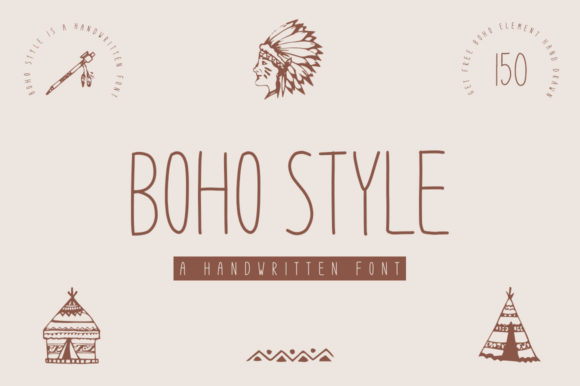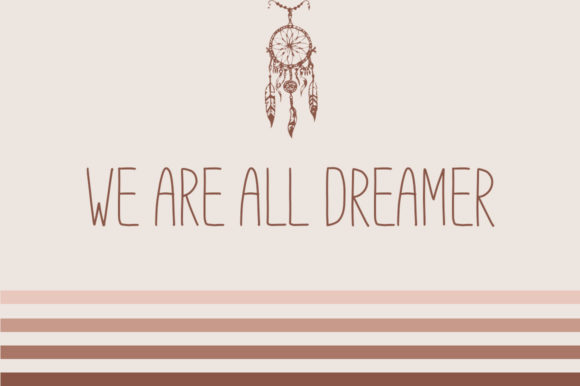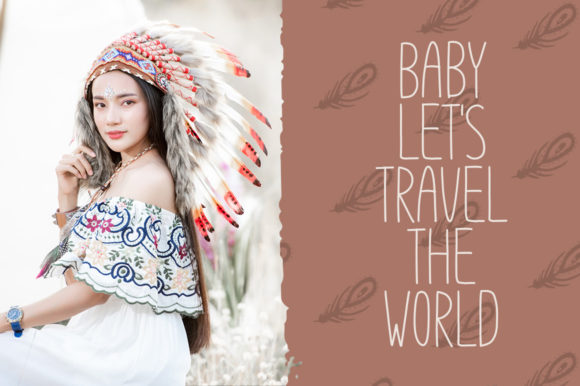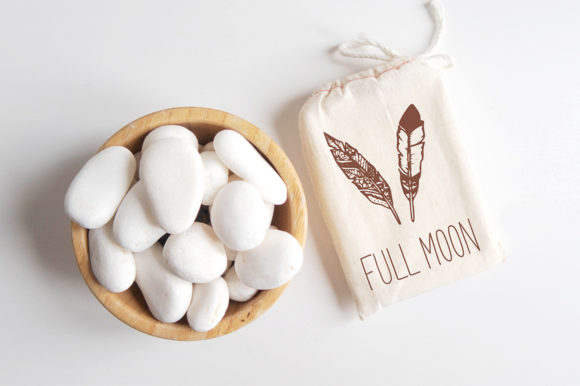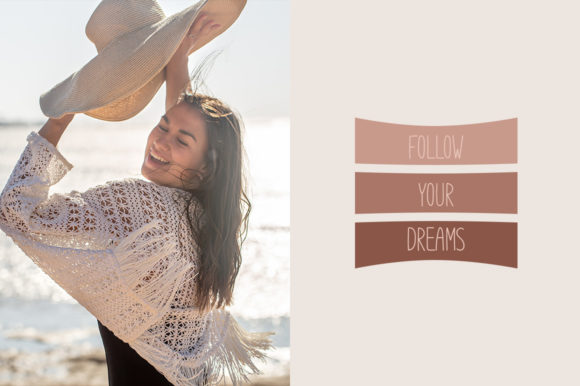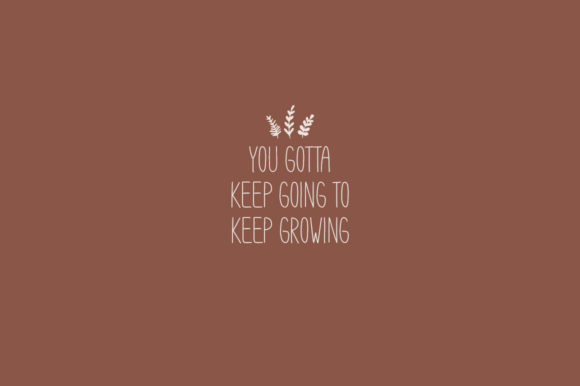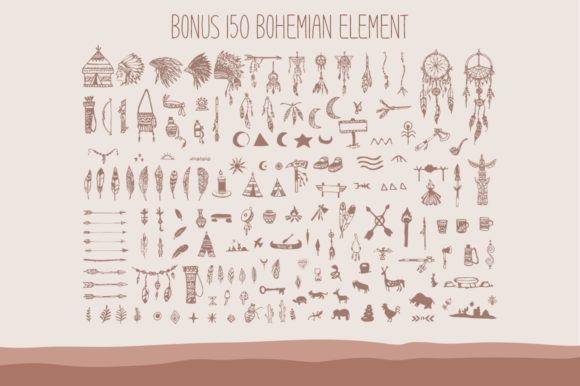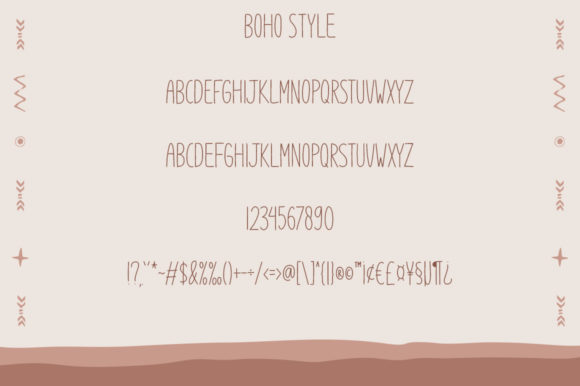
Boho Style Font
About Boho Style Font
Boho Style is a fresh, modern and thin lettered handwritten font. It’s elegant and natural style will make each of your creations look gorgeous.